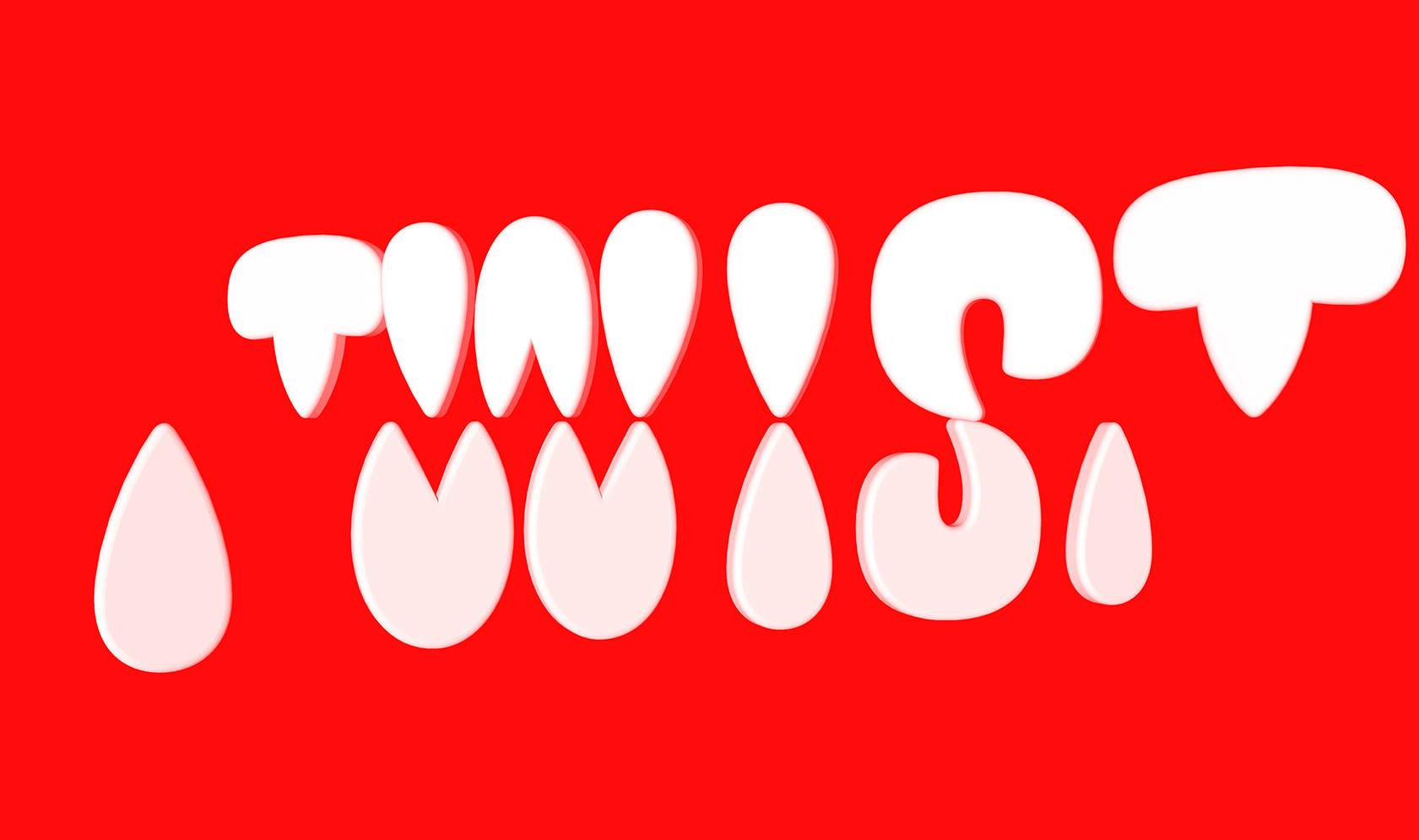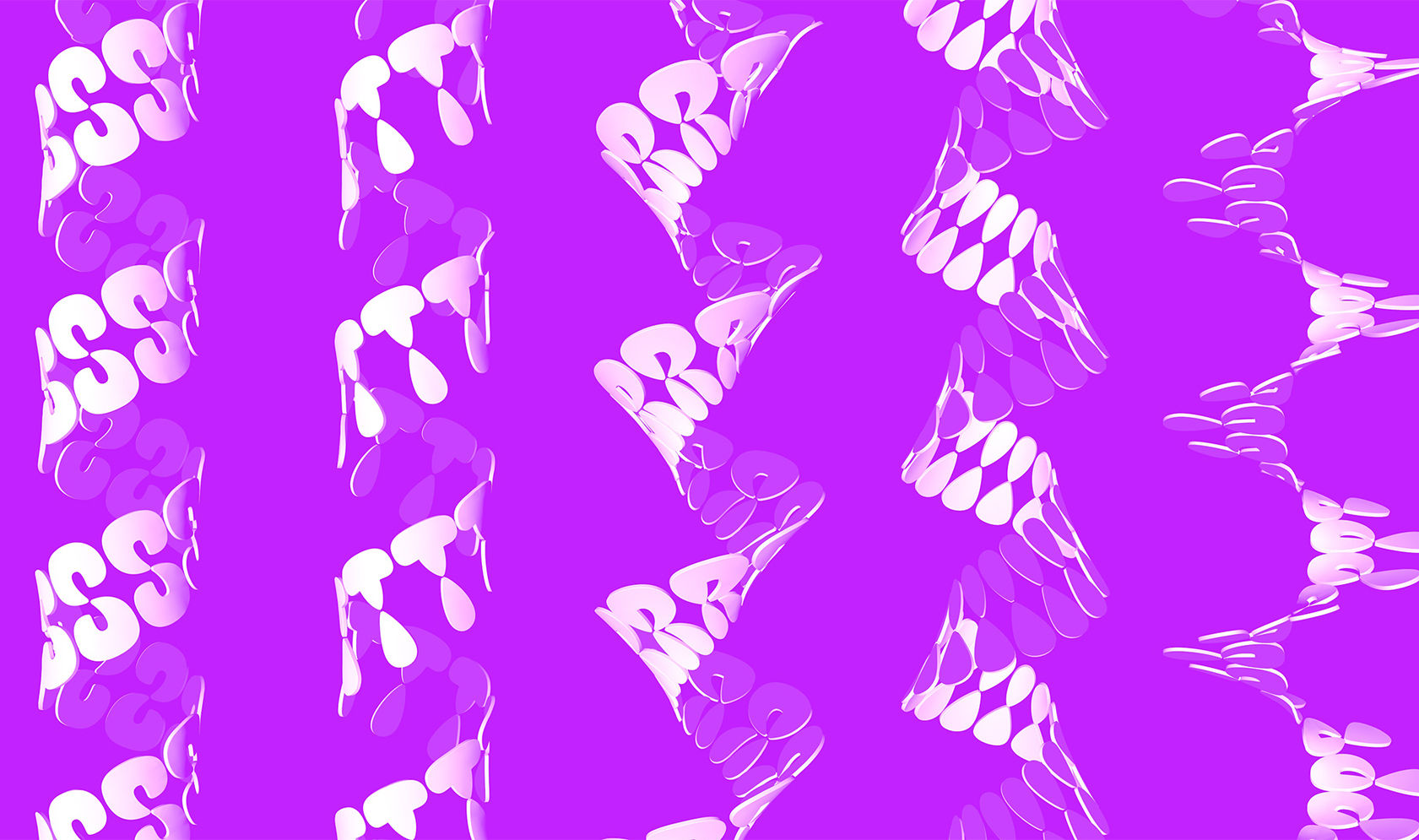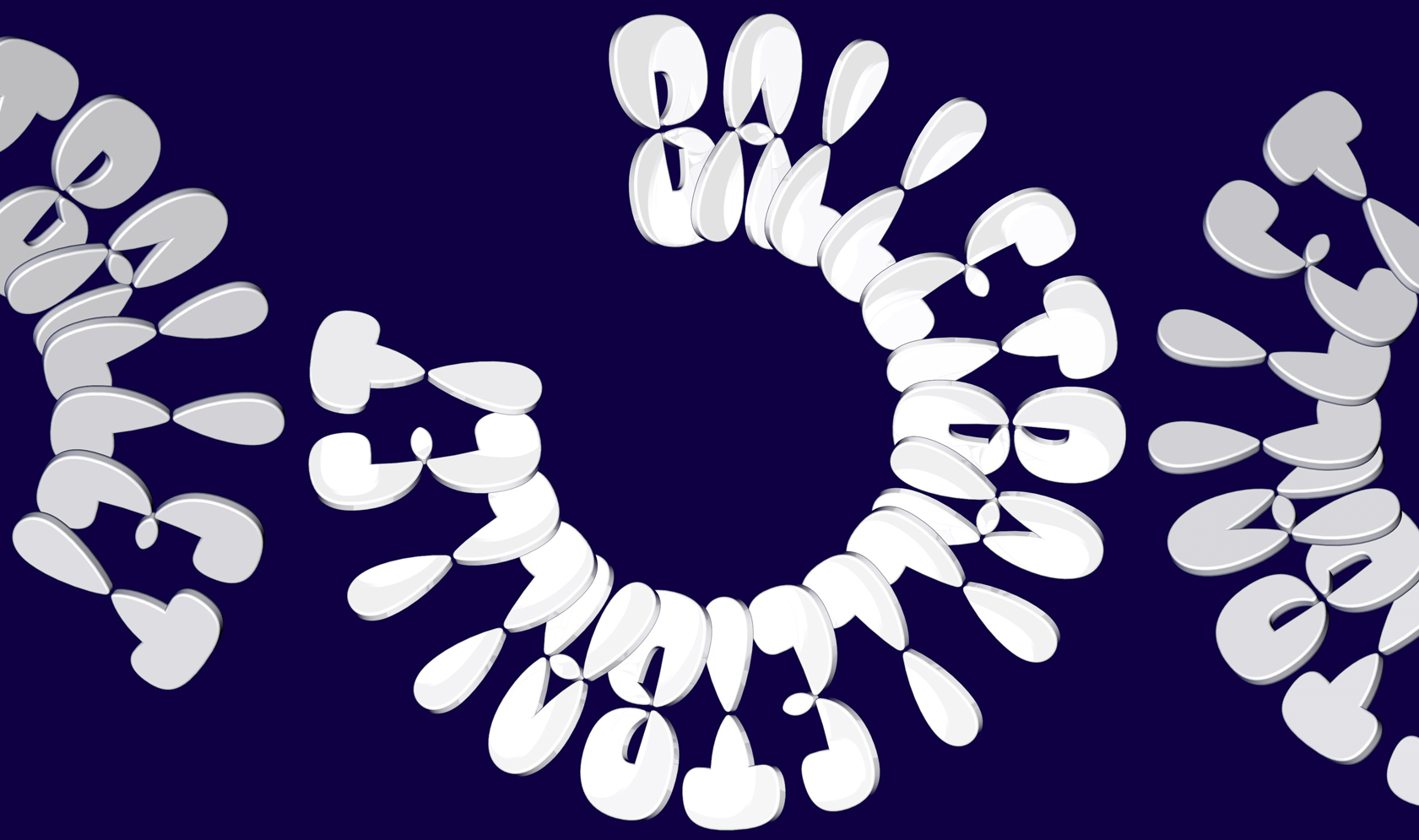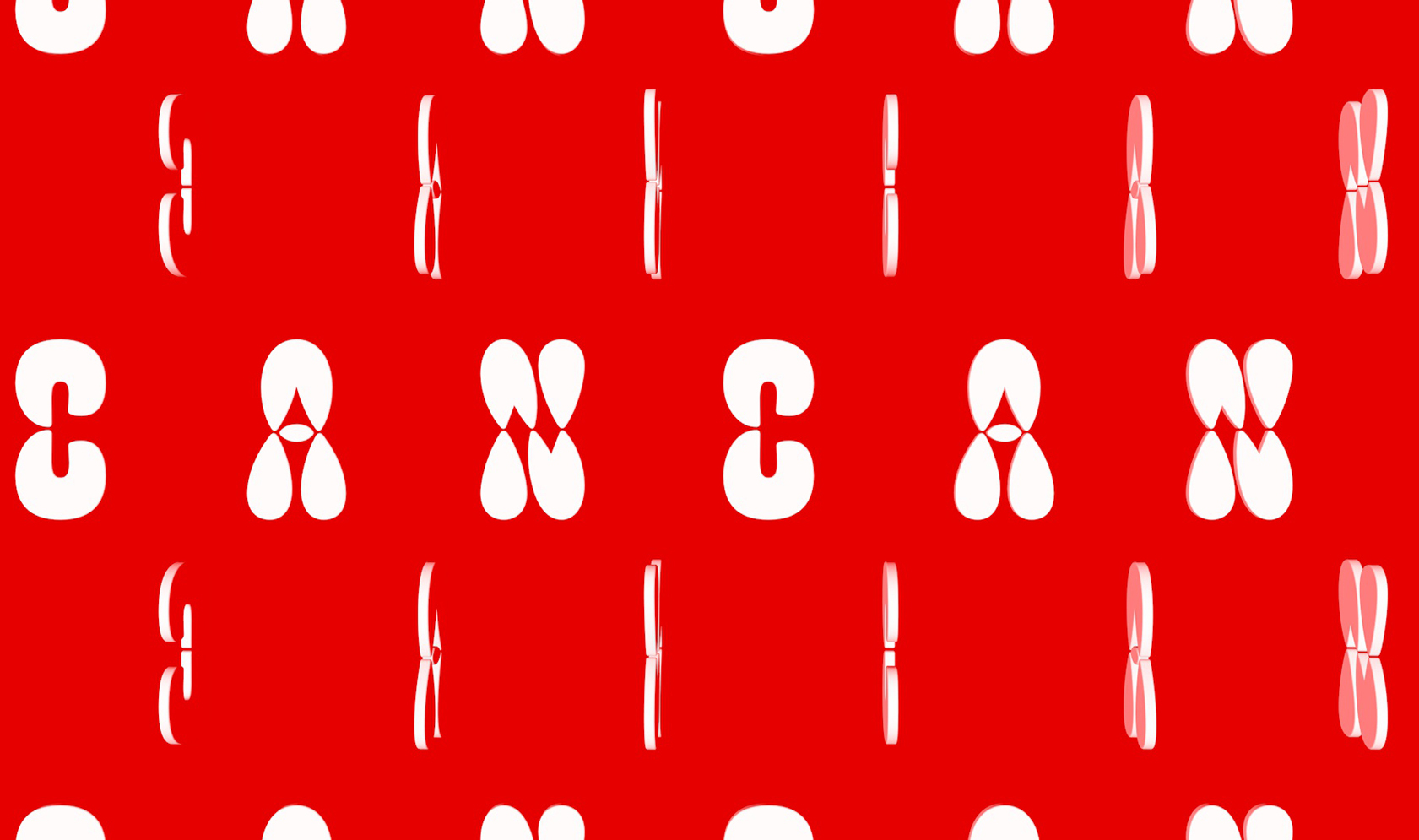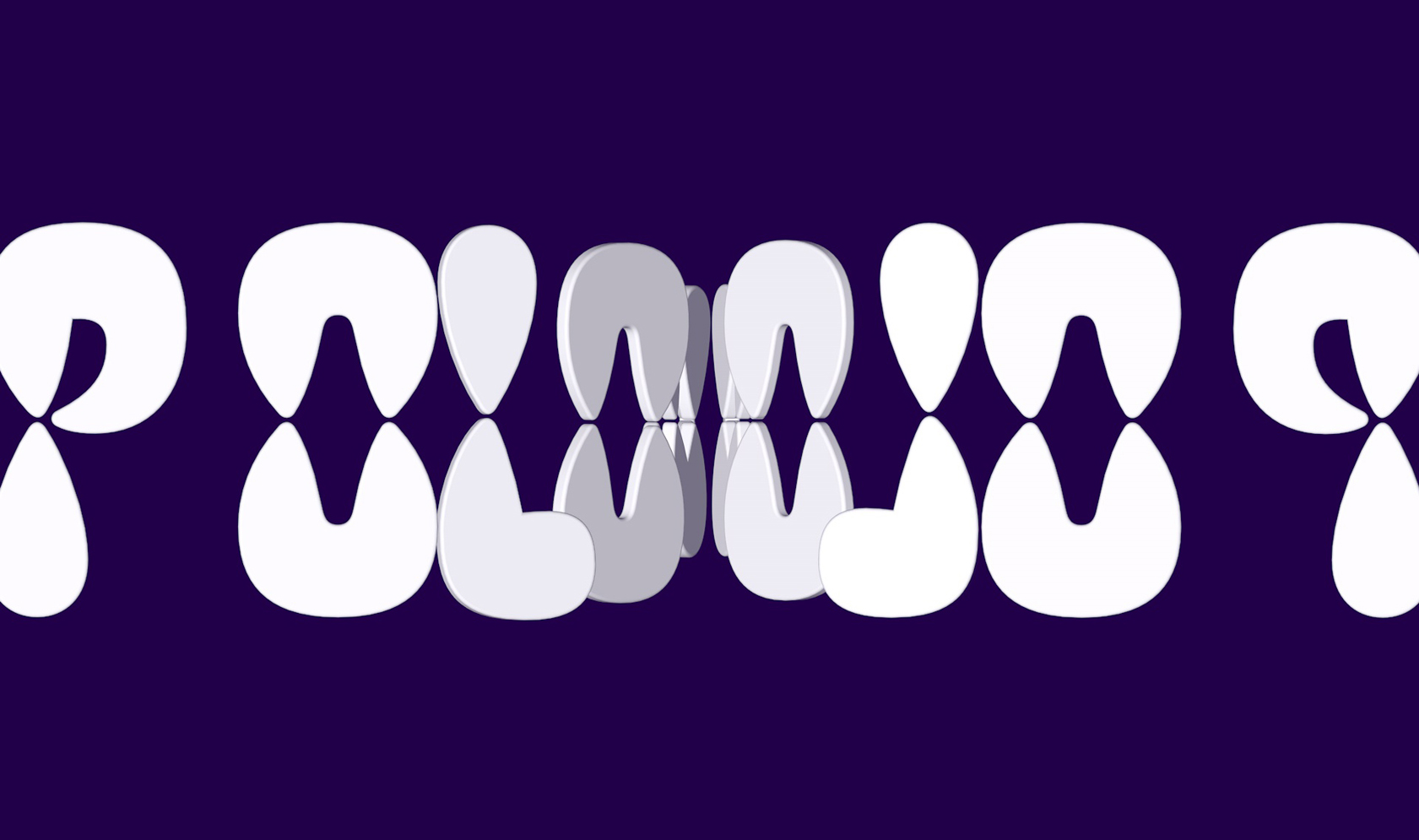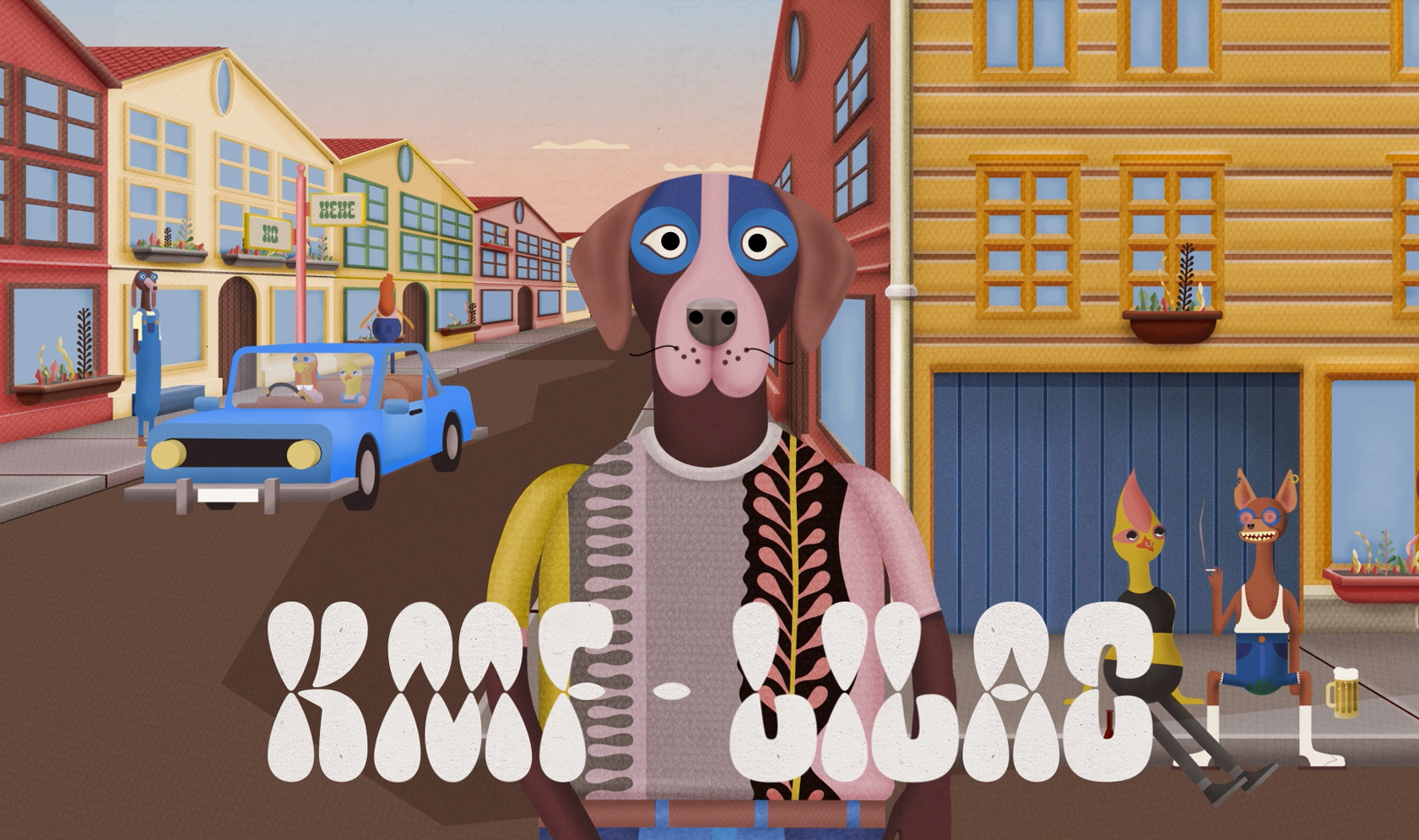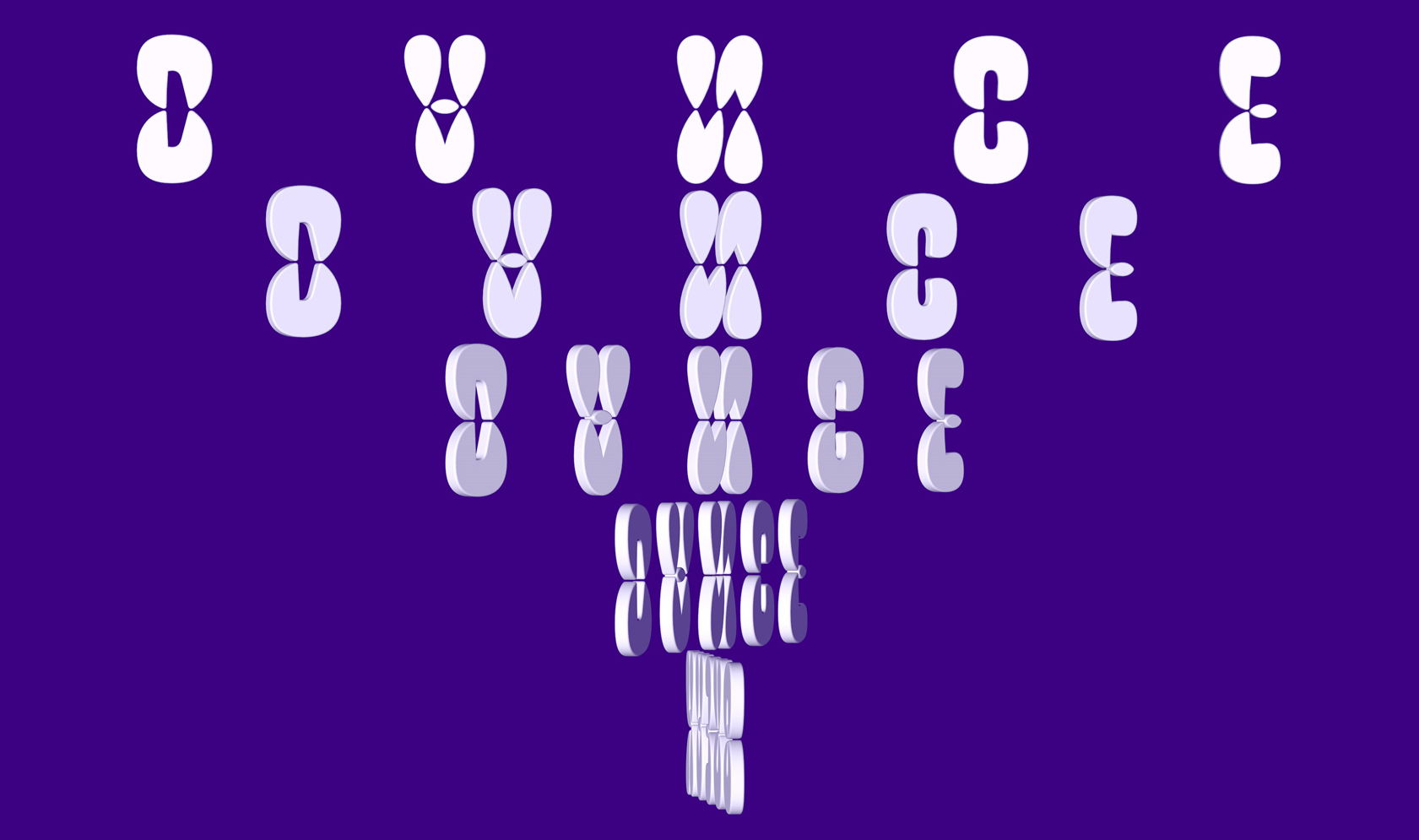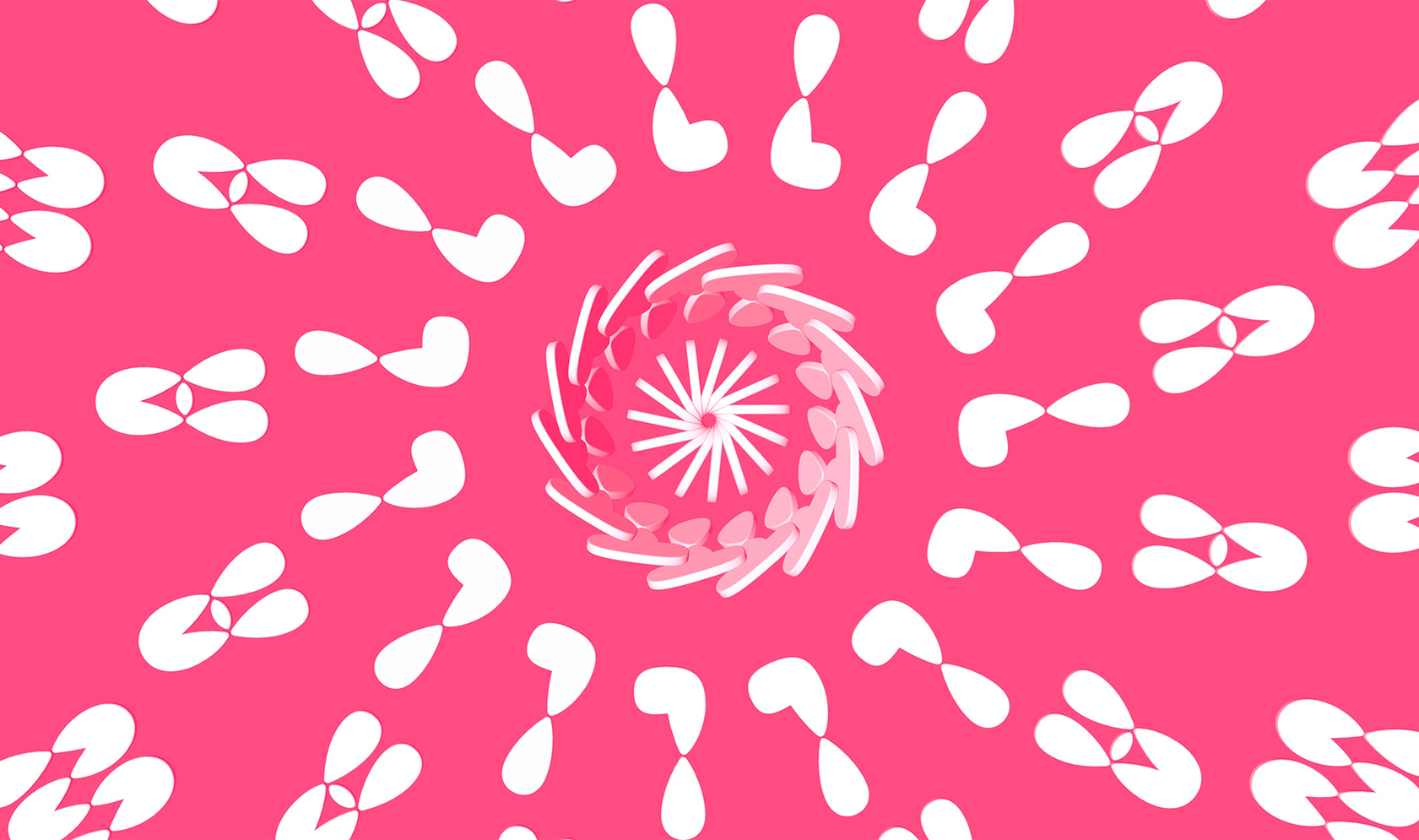
CoFo FlicFlac
About CoFo FlicFlac
FlicFlac is an organic, soft and rhythmic typeface. It explores the idea of repetition, without following the strict rules of traditional stencil and modular designs. The harmonious shape that words create might deceive you into thinking all letters are made with the same building blocks, but hardly any element is repeated. It’s all about balancing the construction of each letterform with the overall plump and natural character.
FlicFlac works perfectly as a statement font, within a word or a phrase that needs to grab the attention. But it’s rhythmic structure also creates extremely ornamental text textures worth experimenting with. On top of that its building blocks are ready to move and invite you to make them dance in animation.
The main element of the typeface may remind you of water drops and it performs in the same organic way as water naturally flows. The elements tighten and come together in the middle of each letterform, without touching. In more complex characters these drops merge, creating new forms. Maintaining FlicFlac’s character throughout means pushing the limits of legibility. Maybe sometimes you would have to guess a letter from the context, but that is a sacrifice you can make, right? Because this typeface will always make you notice and make you listen to what it has to say.
CoFo FlicFlac in use